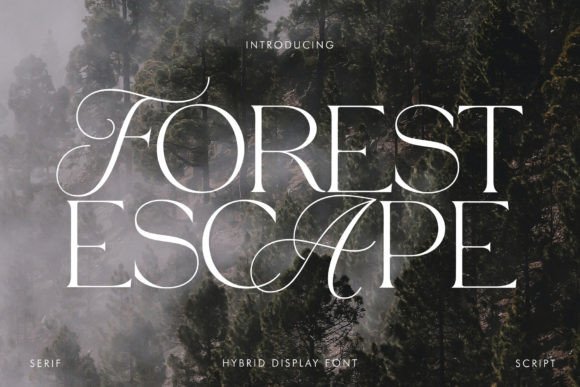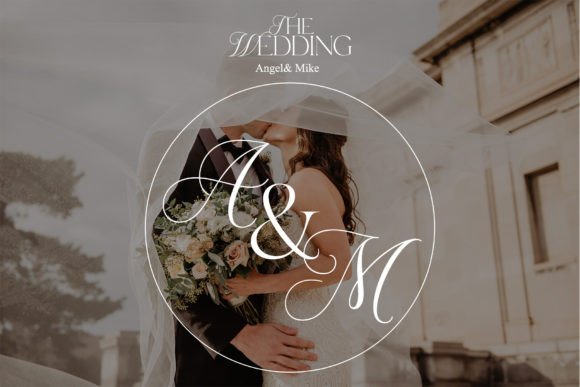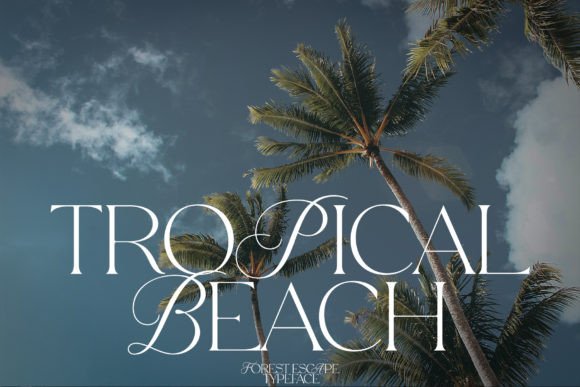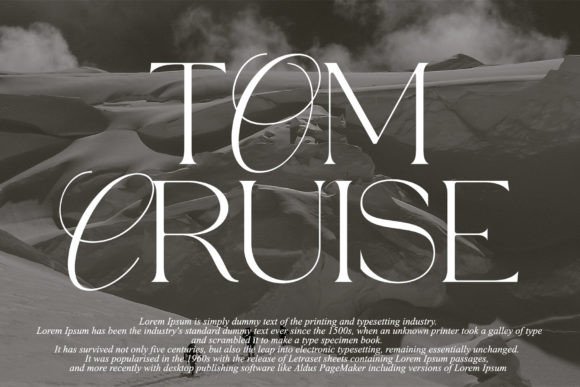
Forest Escape Font: Elegant Serif for Wedding & Logo Design
About the Forest Escape Font
Get ready to be inspired by Forest Escape Font, a fresh and dynamic typeface for modern creators. Forest Escape is a luxurious serif font that embodies elegance and sophistication. Its refined, intricate letterforms make it ideal for upscale branding, premium packaging, and high-end editorial layouts. Elevate your projects with the timeless beauty and grandeur of this exquisite typeface, perfect for any opulent design.
Forest Escape thrives in applications requiring a sense of refined luxury. Headlines, logos, and short text blocks within brochures or invitations are particularly well-suited. Its intricate detail, however, makes it less effective for body copy or UI elements where readability over long passages is paramount.
Consider pairing Forest Escape with a clean sans-serif like Lato for a balanced contrast, or a playful script font such as Pacifico for a more whimsical feel, depending on the desired overall mood. A geometric sans-serif could also provide a modern counterpoint.
The font exudes an air of sophisticated elegance and timeless charm, making it perfect for brands associated with high-end products, exclusive events, or heritage businesses. Avoid using it for projects requiring a modern, minimalist aesthetic.
Forest Escape Font Usage Examples
Forest Escape Font Example